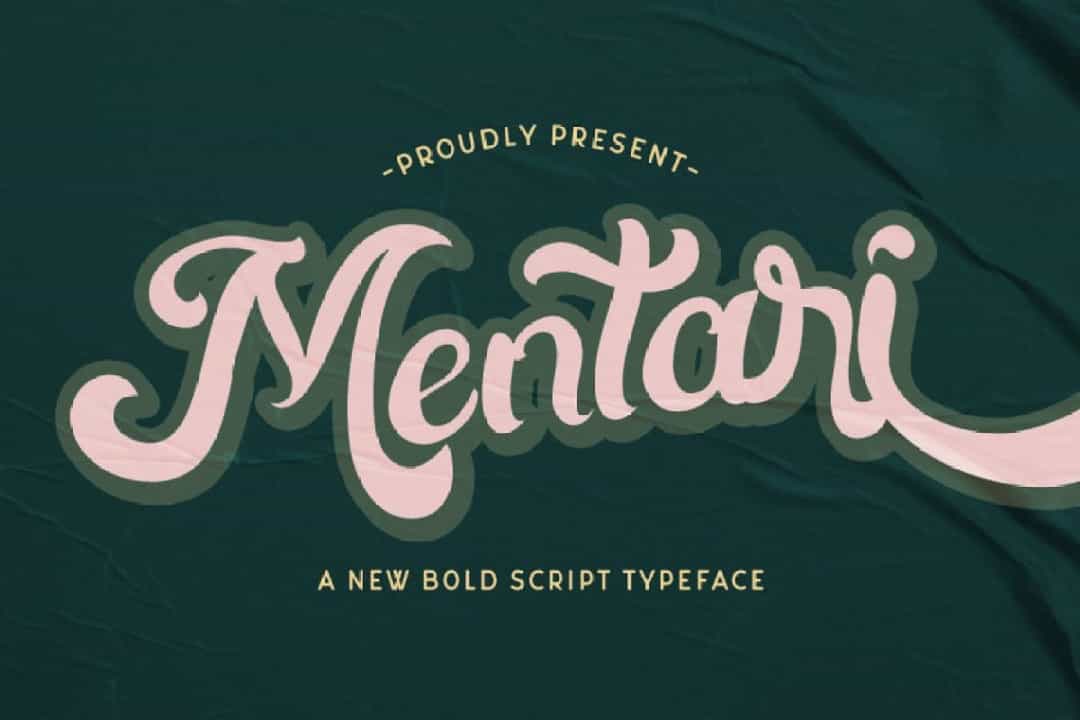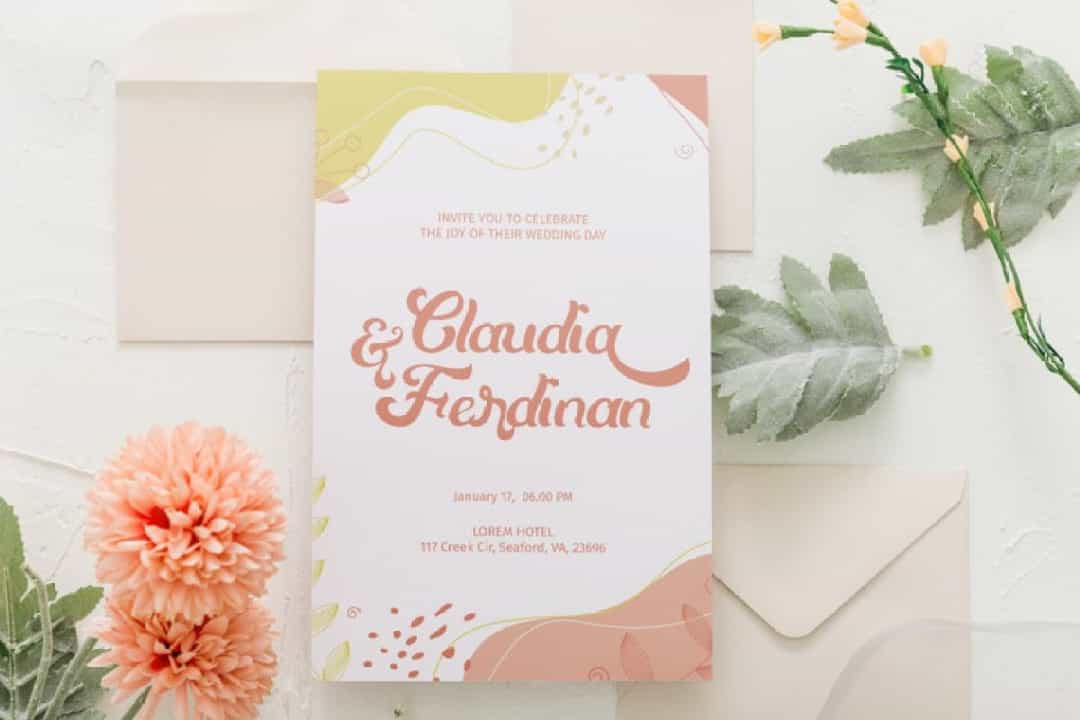
Mentari Font inspired by Retro design and combined with hand lettering style. Mentari Font comes with a variety of characters for swash and ligatures. They also include open type features such as an alternative stylistic style and a stylistic set. It also has a Swash and ligature so that it is possible to mix and match them as the way you want.